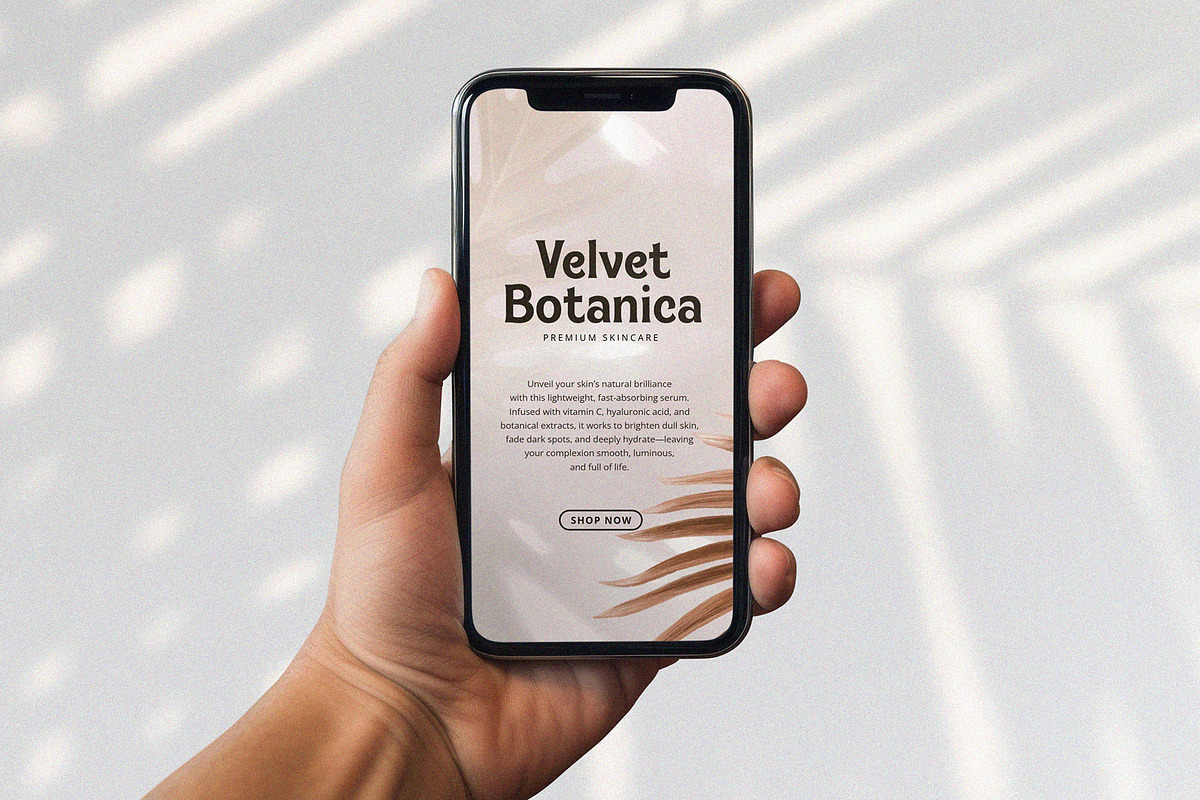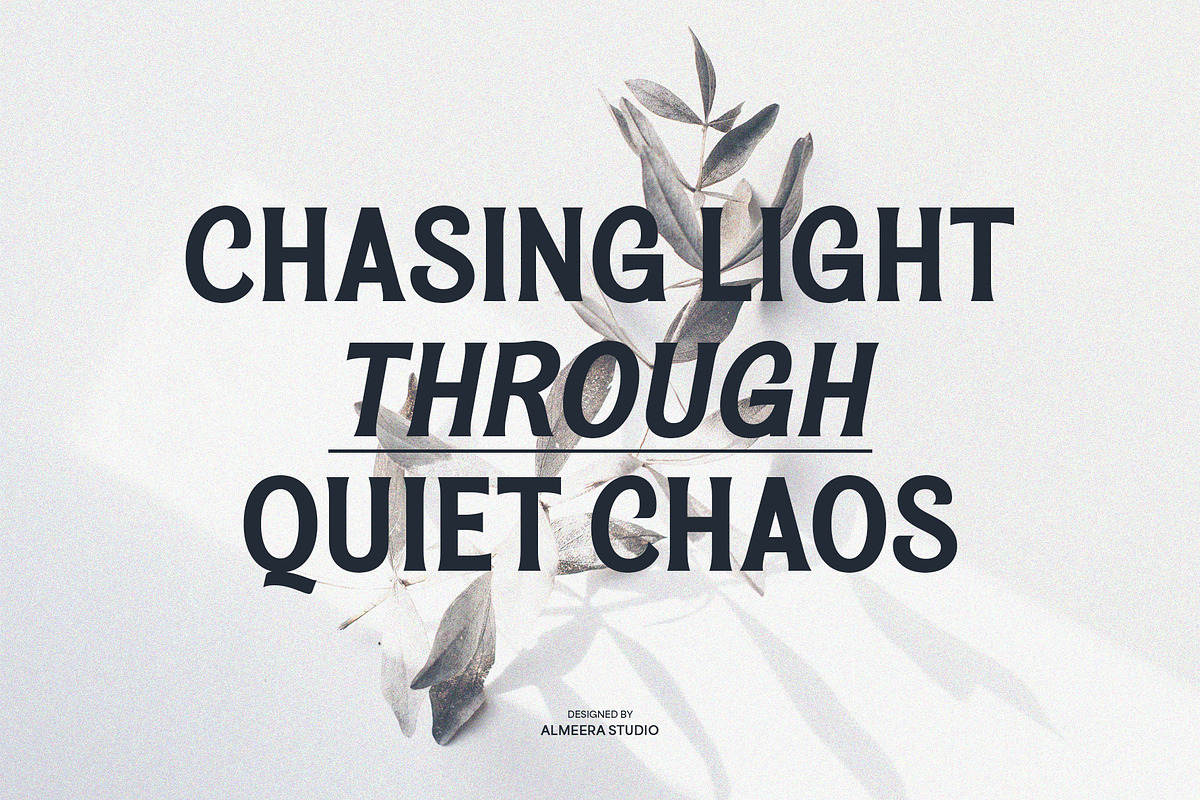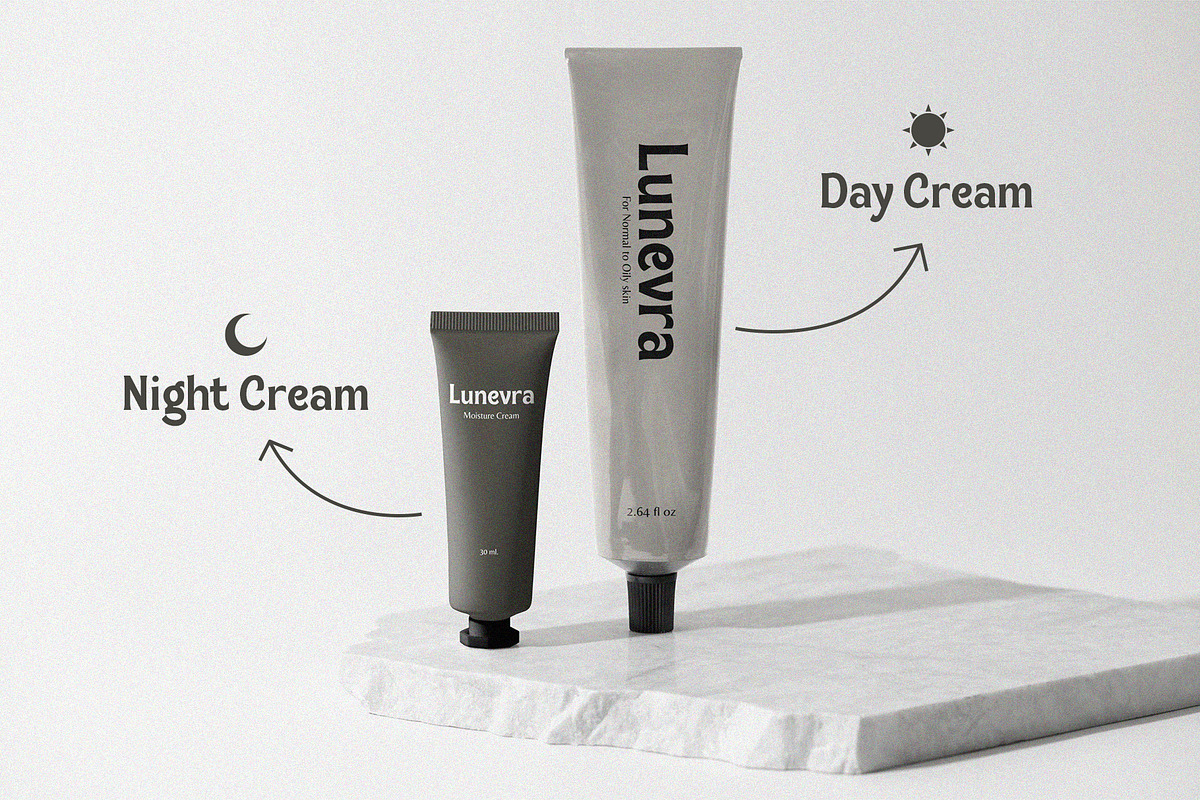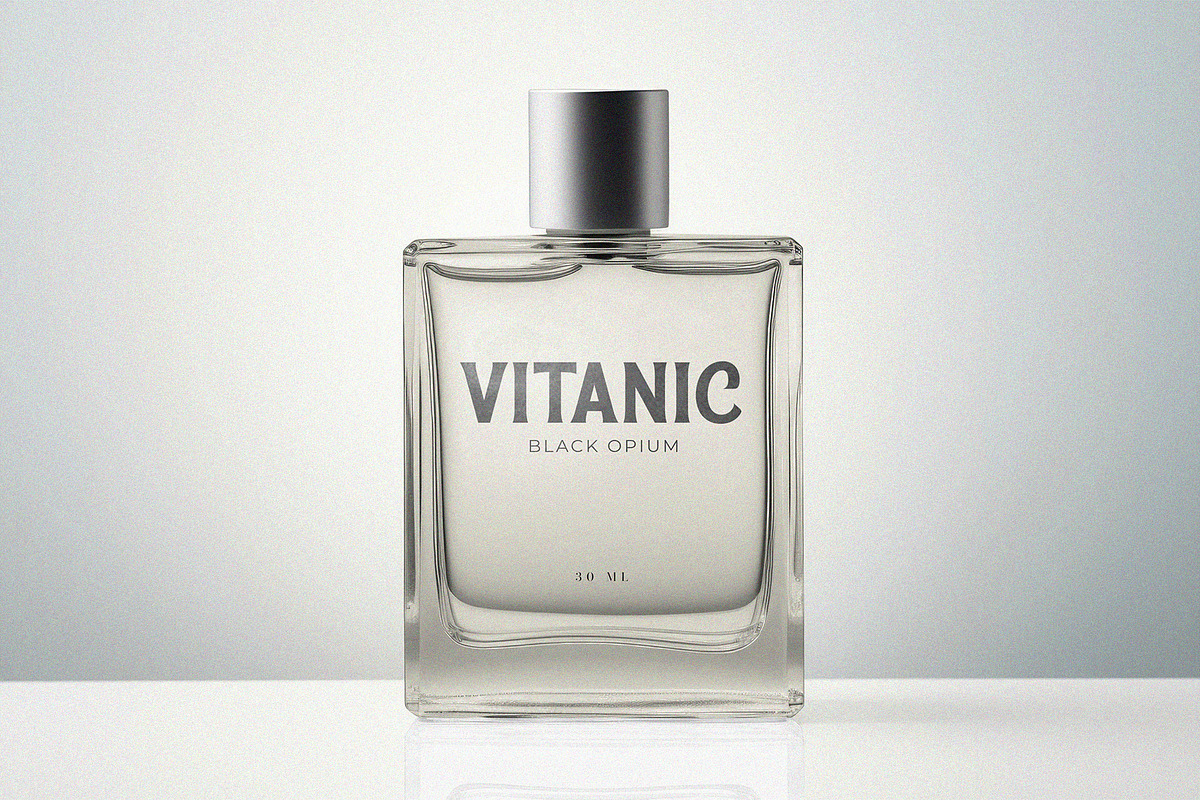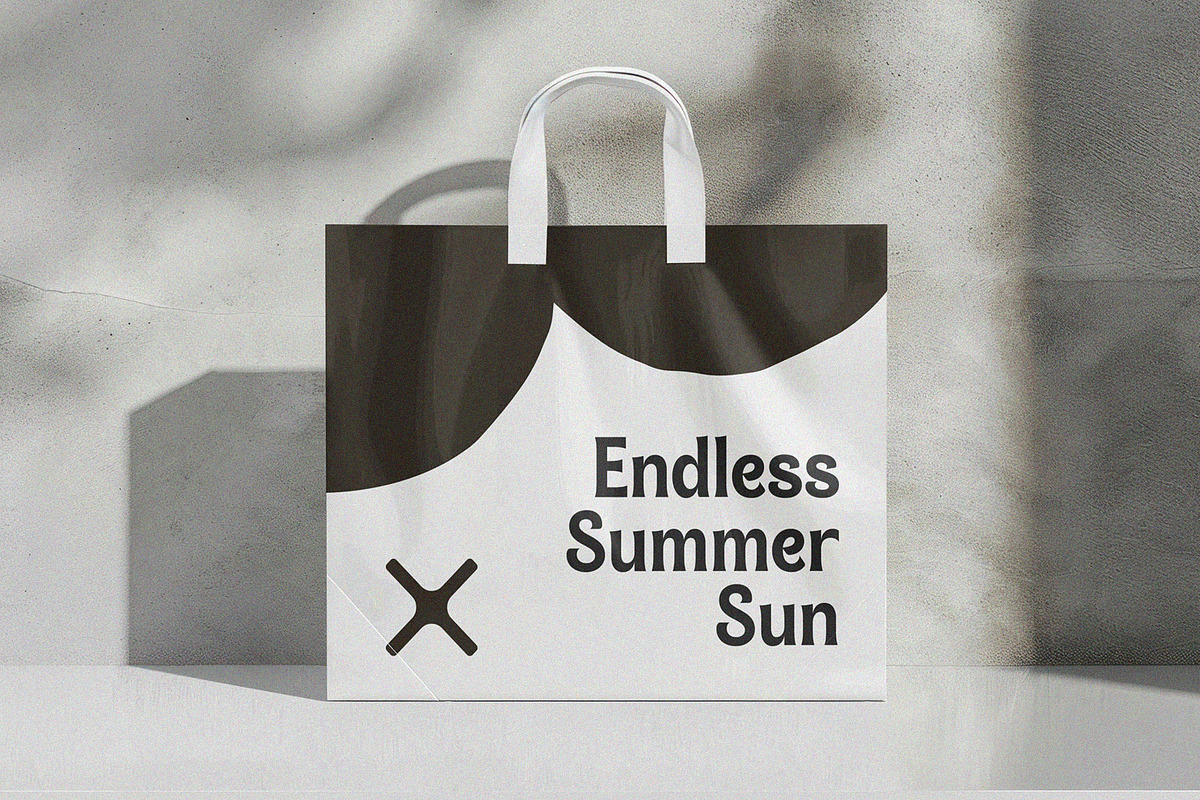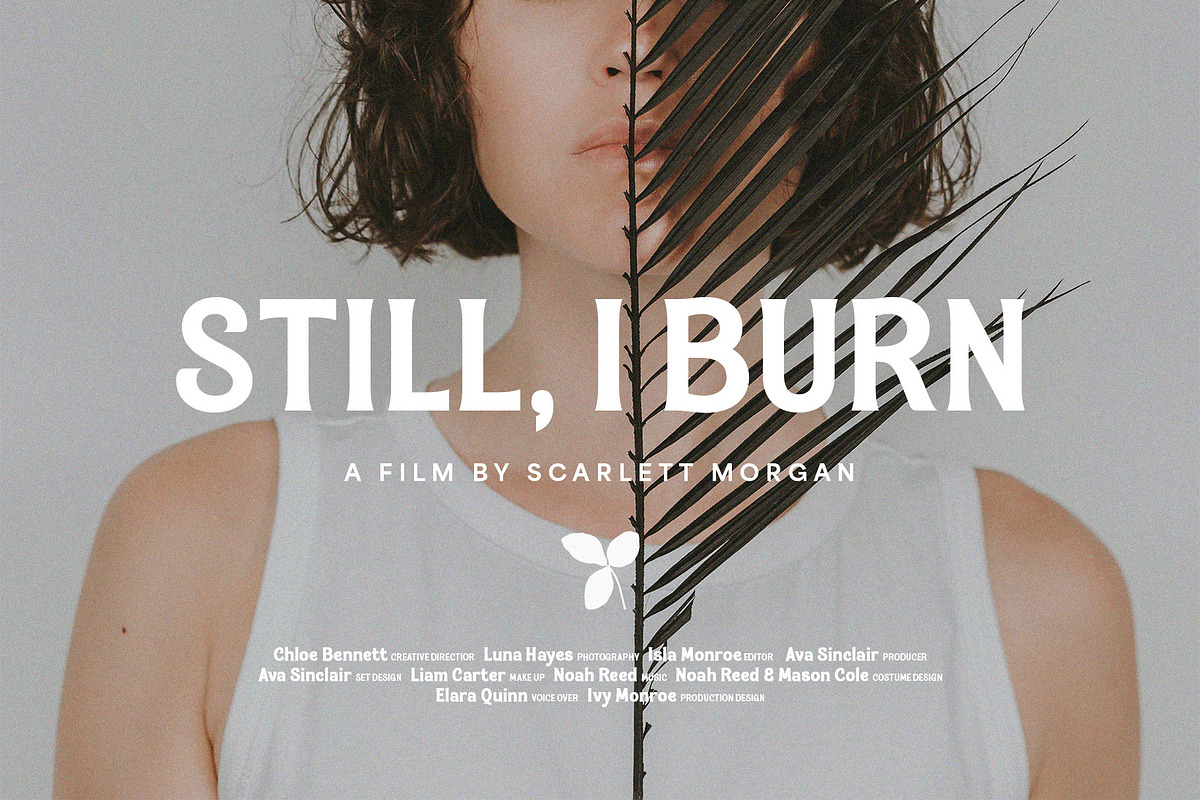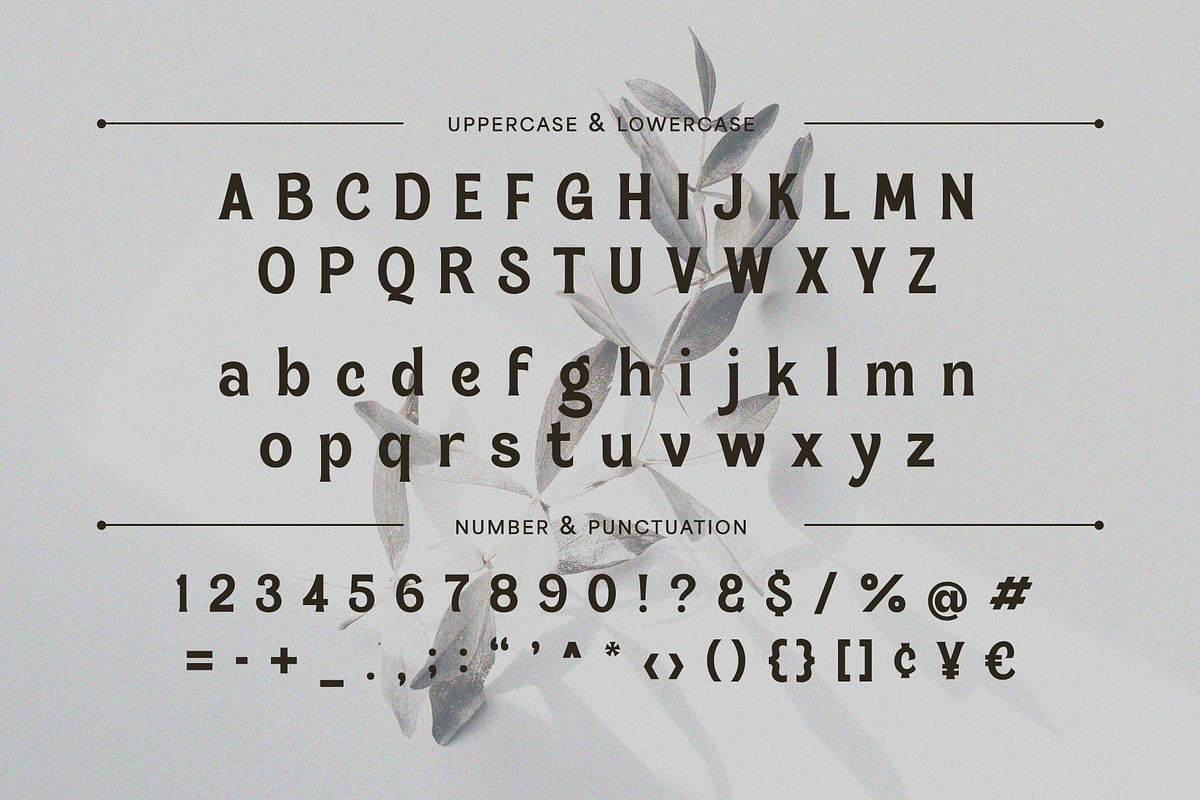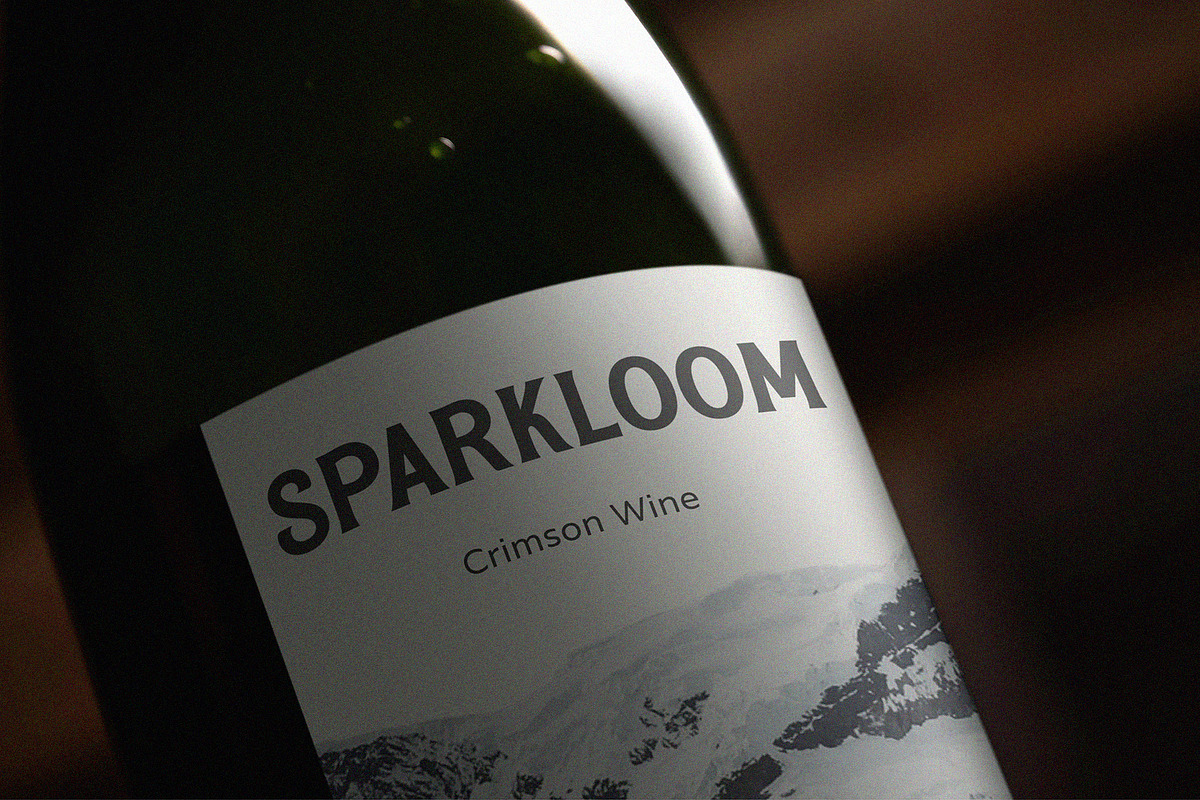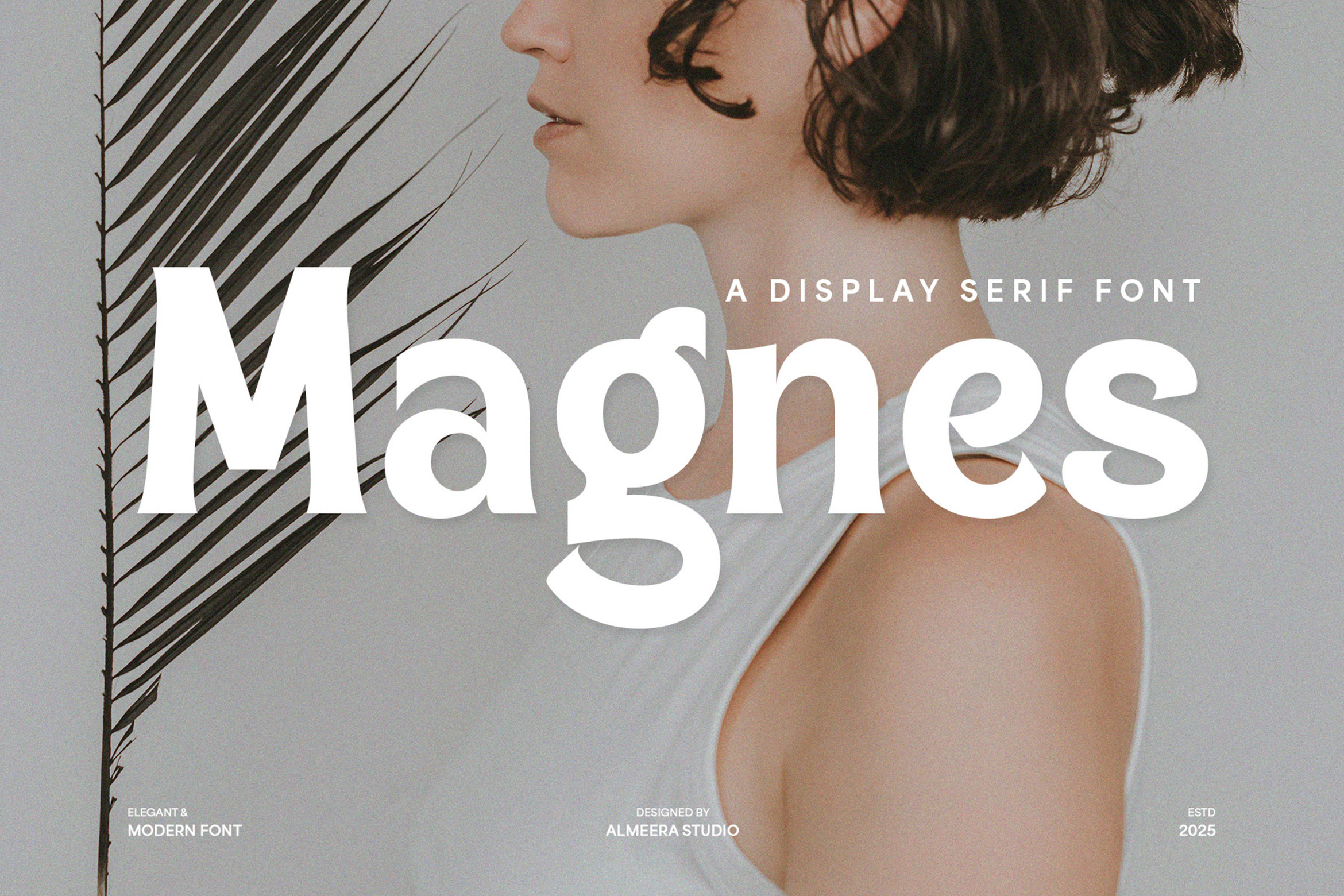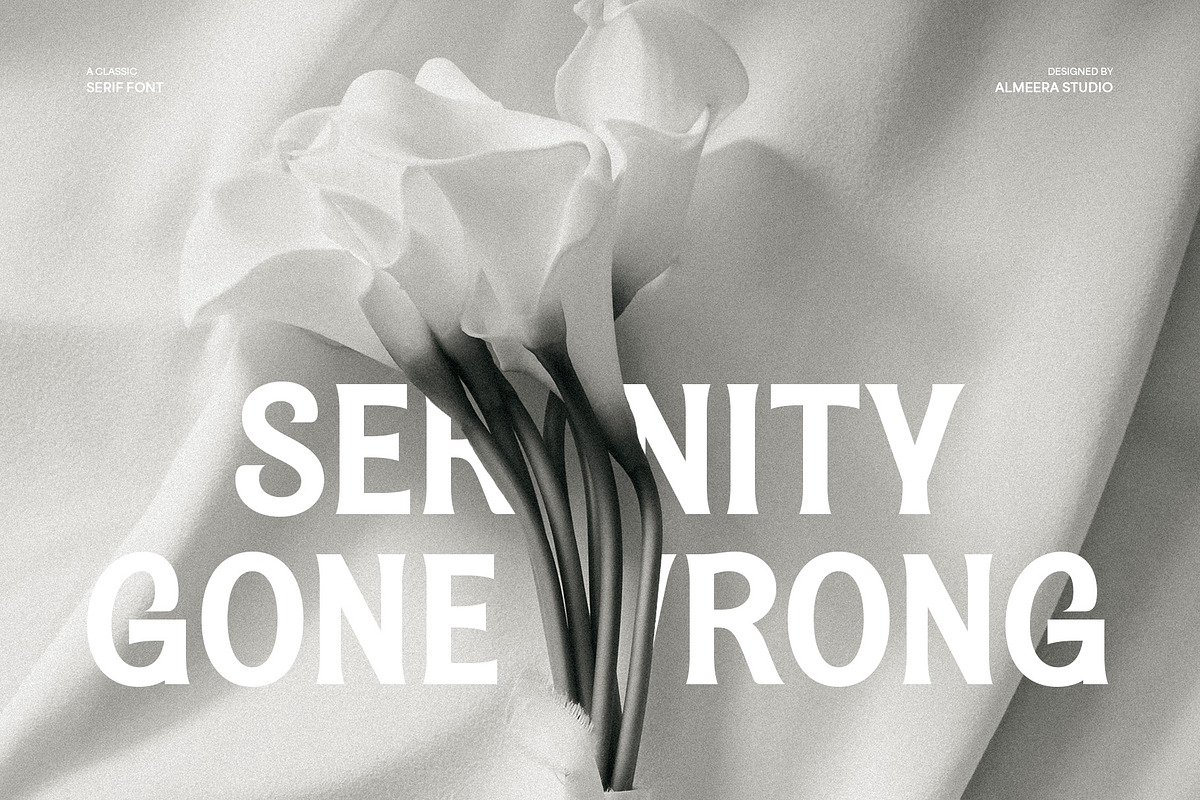
Magnes - A Display Serif Font
Introducing Magnes, an exquisitely crafted display serif font that embodies the perfect blend of elegance and modernity. This captivating typeface is ideal for magazine layouts, fashion branding, luxury product packaging, editorial headlines, and any project demanding a sophisticated and artistic touch. Magnes features graceful curves and distinctive serifs that command attention while maintaining superb readability. Its unique character adds an artistic flair to your typography, ensuring your designs stand out with a refined and memorable presence. Elevate your creative work with Magnes, the quintessential font for designers seeking to make a bold, stylish statement with a timeless yet contemporary feel.